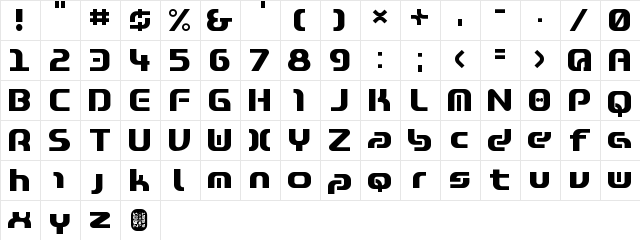
Zone99 Regular
Design Context for Zone99 Typeface
Zone99 is a composed and adaptable typeface that performs quietly and consistently across a wide range of design contexts.